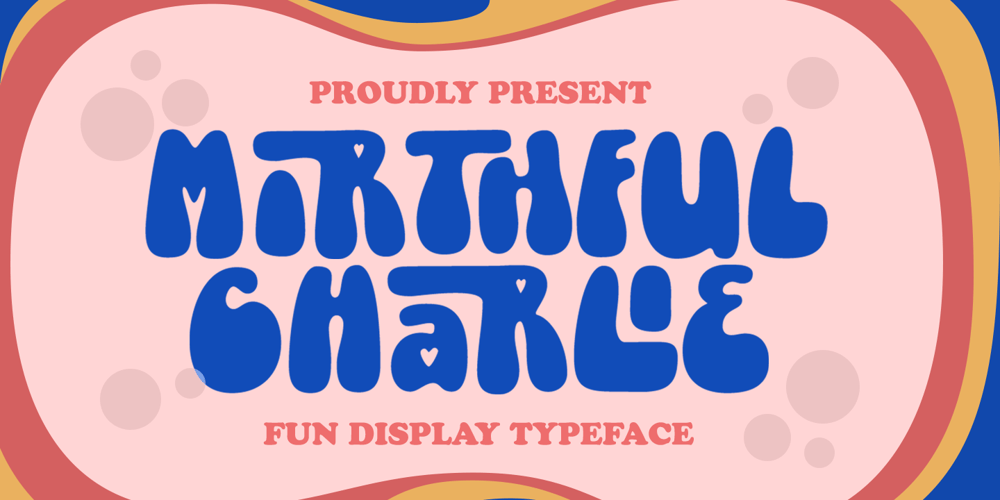
Mirthful Charlie Font Family was designed by Hendry Juanda and published by Letterhend. Mirthful Charlie contains 1 styles and family package options. Mirthful Charlie is a quirky bold font that is perfect for adding a touch of fun and whimsy to any design project. The font features a bold and quirky form that exudes a sense of cheerfulness and lightheartedness. This font makes it ideal for a variety of design projects, including posters, invitations, greeting cards, logos, and more. Whether you’re creating a children’s book or designing a playful brand identity, this font is sure to bring a smile to your audience’s face.Features : Uppercase & lowercase Numbers and punctuation Ligatures Multilingual PUA encoded We highly recommend using a program that supports OpenType features and Glyphs panels like many of Adobe apps and Corel Draw, so you can see and access all Glyph variations.